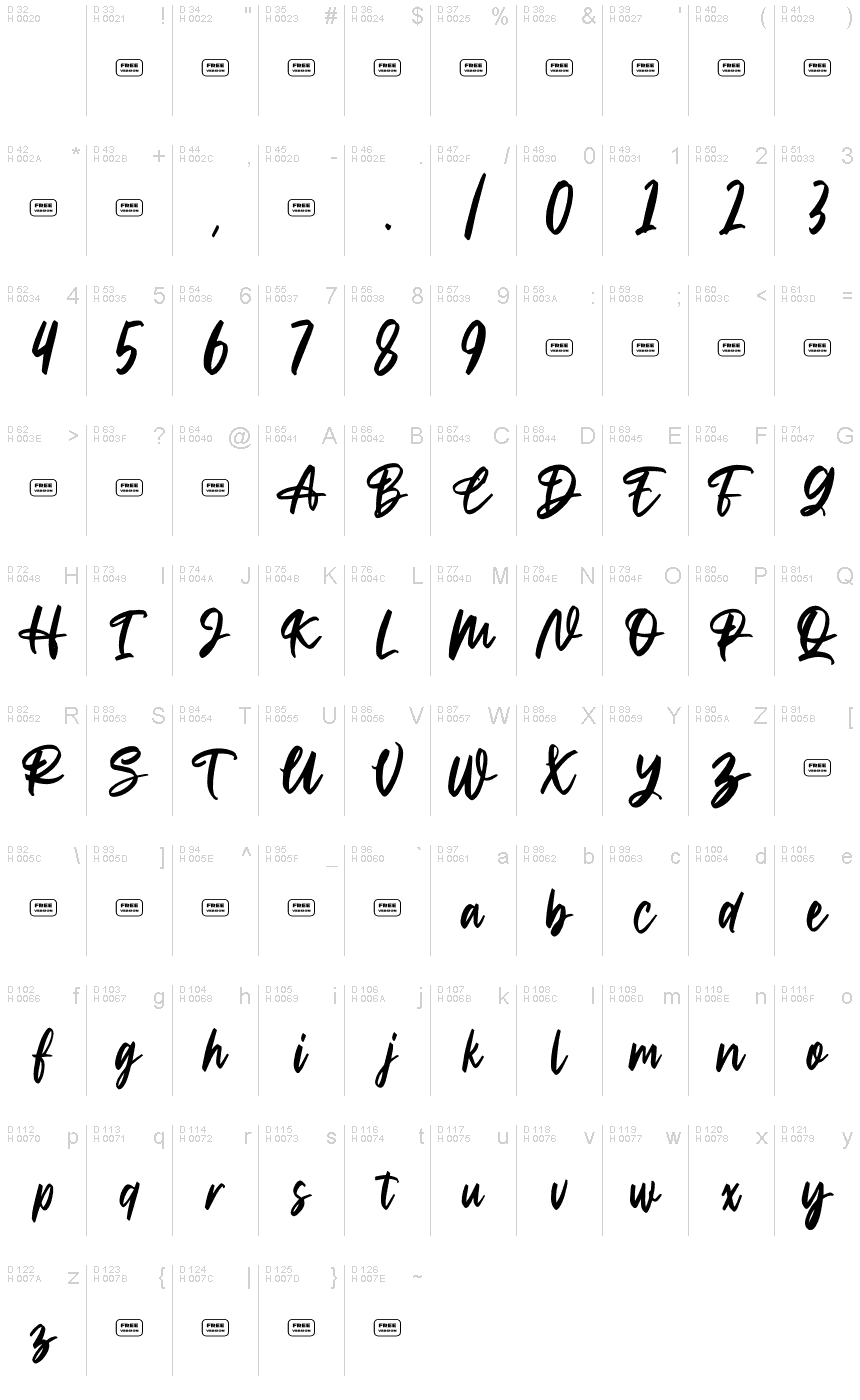
Home to Rome Free Trial
Home to Rome is a classy and lovely script font designed by Typefactory. It has a elegant style and is perfect for creating original designs.
This lovely casual brush font is really great for a logo, clothing, quotes, headings, wedding invitations, posters, and many others.